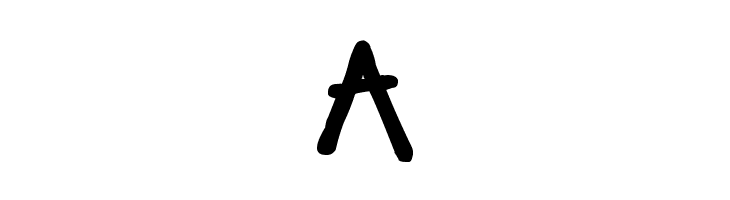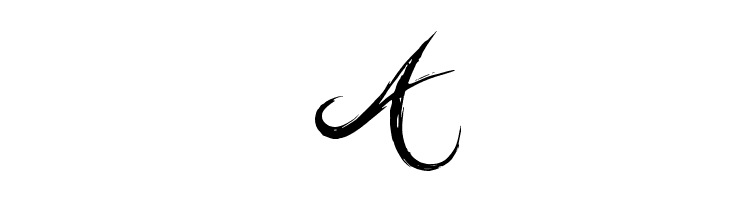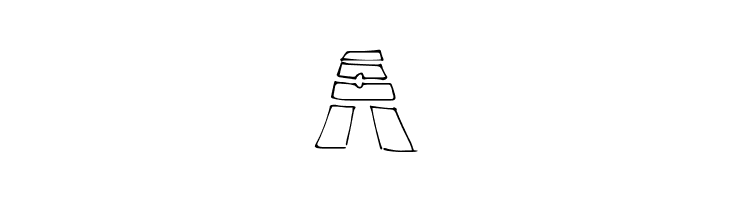
A bold, hand-drawn font with textured, sketch-like hatching.
A bold, geometric, and fragmented decorative font ideal for modern and edgy designs.
A futuristic, geometric font with high contrast and angular design.
A bold, sketch-like 3D font with a graffiti-inspired style.
A bold, playful font with jagged outlines and rounded characters.
A bold, decorative font with a grunge texture and thick outlines.
A bold, geometric font with a futuristic, digital aesthetic.
A bold, geometric font with a digital, futuristic style.
A rugged, distressed font with a fragmented, edgy style.
A bold, tribal-inspired font with sharp, angular strokes and intricate curves.
A dynamic, edgy handwritten font with sharp, angular strokes and a sense of movement.
An ornate and decorative blackletter-style font with intricate flourishes.
A decorative and eclectic font with a mix of bold and ornate styles.
An elegant, artistic script font with dynamic, flowing strokes and ornate uppercase letters.
A sleek, modern font with thin, elongated letterforms and a minimalist design.
A bold, geometric font with a modern, tech-inspired design.
A rugged, distressed font with a bold, hand-drawn appearance.
A bold, graffiti-inspired font with playful, cartoonish elements.
A bold, retro font with a playful, psychedelic style.
A bold, distressed font with a grunge texture and irregular edges.
A bold, decorative font with a vintage, distressed style.
A smooth, rounded Hiragana script font with a modern yet traditional feel.
A bold, impactful font with strong, thick strokes and a slightly condensed width.
A playful handwritten font with a casual and friendly style.
A graceful and elegant script font with flowing, cursive letterforms.
A bold, geometric font with a modern and futuristic design.
A textured, cactus-inspired font with a handcrafted appearance.
A playful, nature-inspired font with characters formed by leaf-like elements.
A decorative, nature-inspired italic font with a leaf-like pattern.
A modern, rounded font with a clean and approachable design.
A playful, casual handwritten font with dynamic strokes and a friendly vibe.